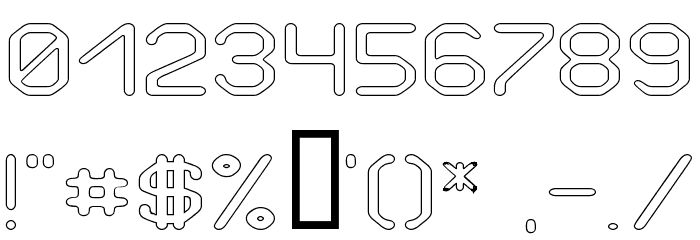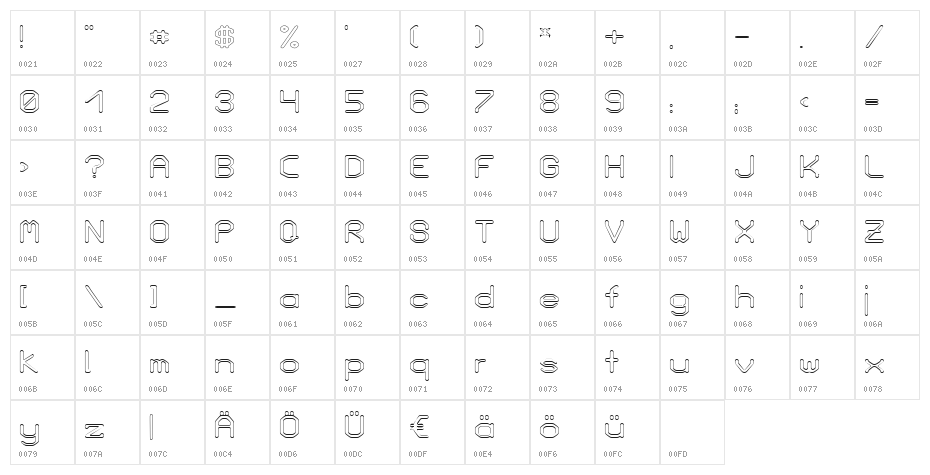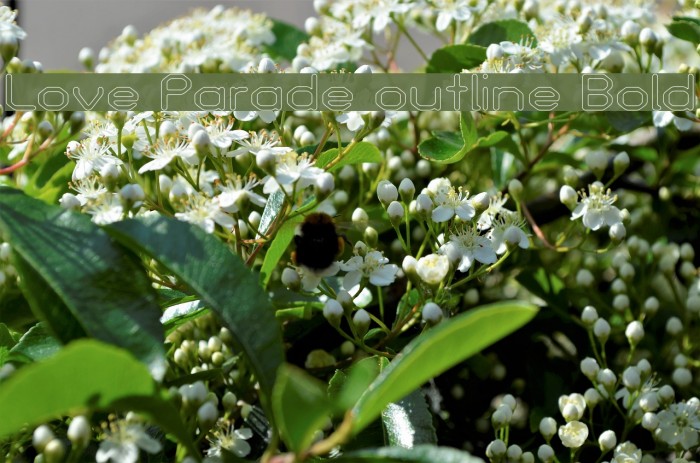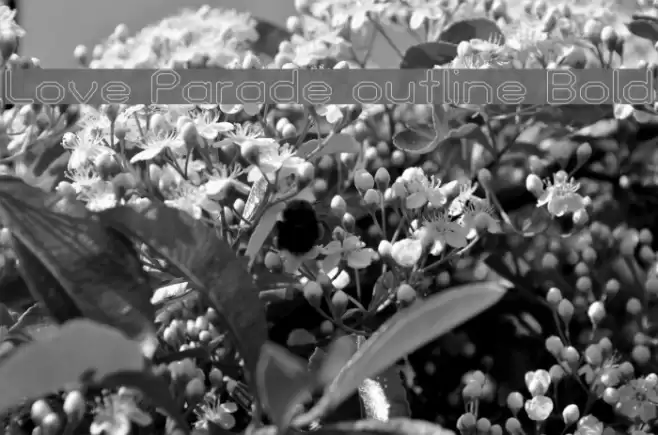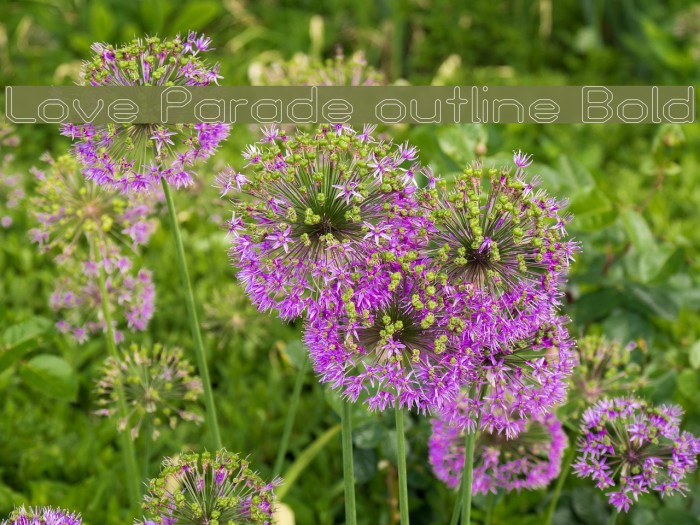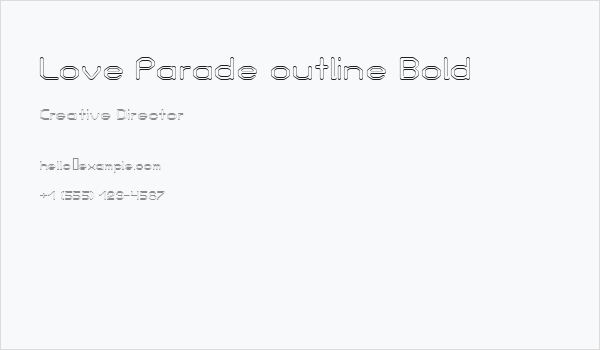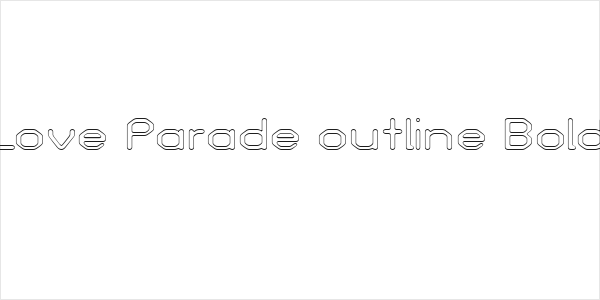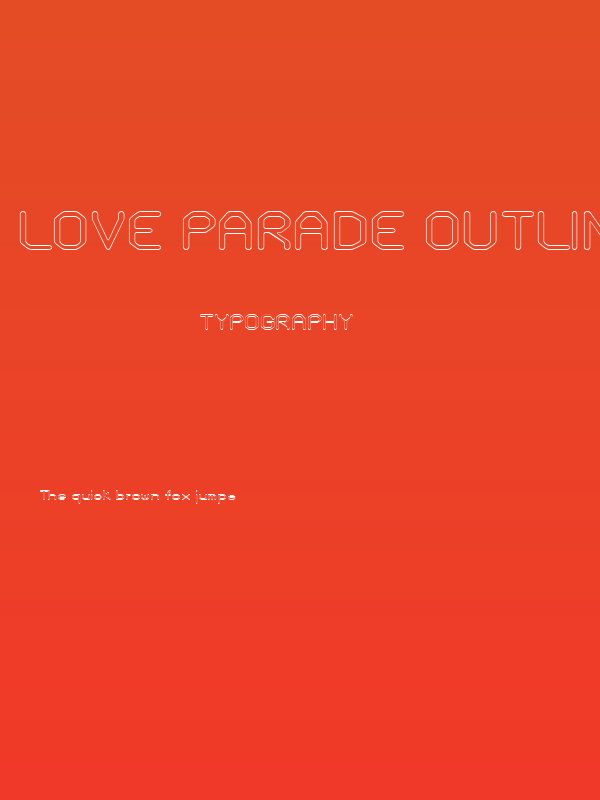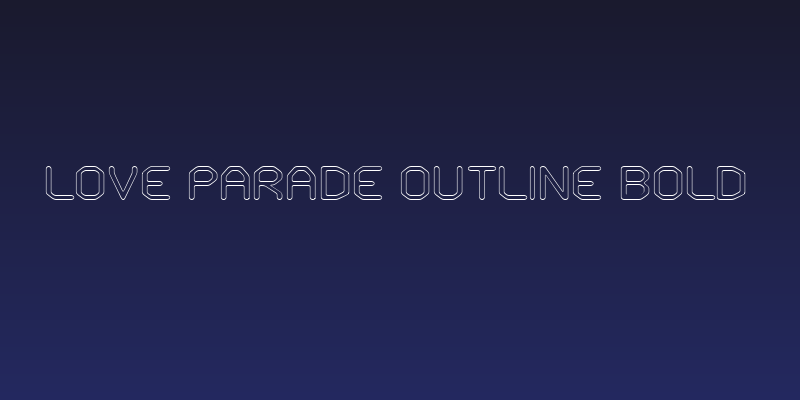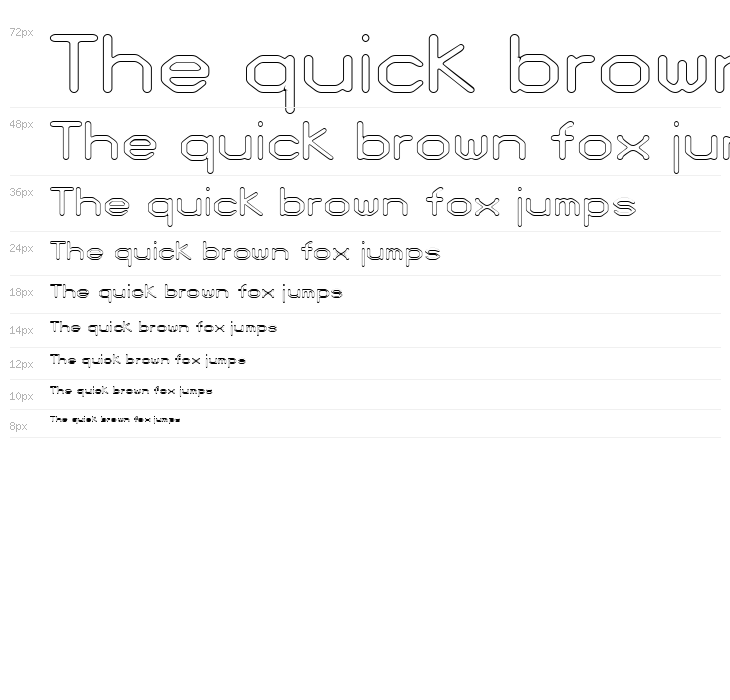
Love Parade outline Bold Font
This font features a bold, outlined style with a modern and geometric aesthetic. The characters are constructed with clean lines and rounded edges, giving it a futuristic and playful appearance. The uppercase and lowercase letters maintain a consistent height, contributing to a uniform look across the text. The numerals and special characters follow the same design principles, ensuring a cohesive visual experience. The outline effect adds a unique dimension, making it suitable for eye-catching designs.
Proposed ProjectsIdeal for posters, logos, and digital media where a modern and playful touch is desired.